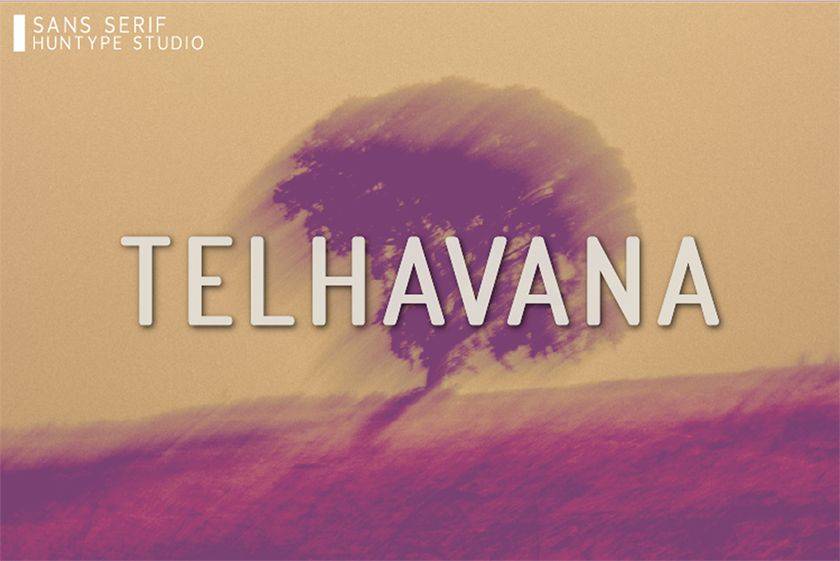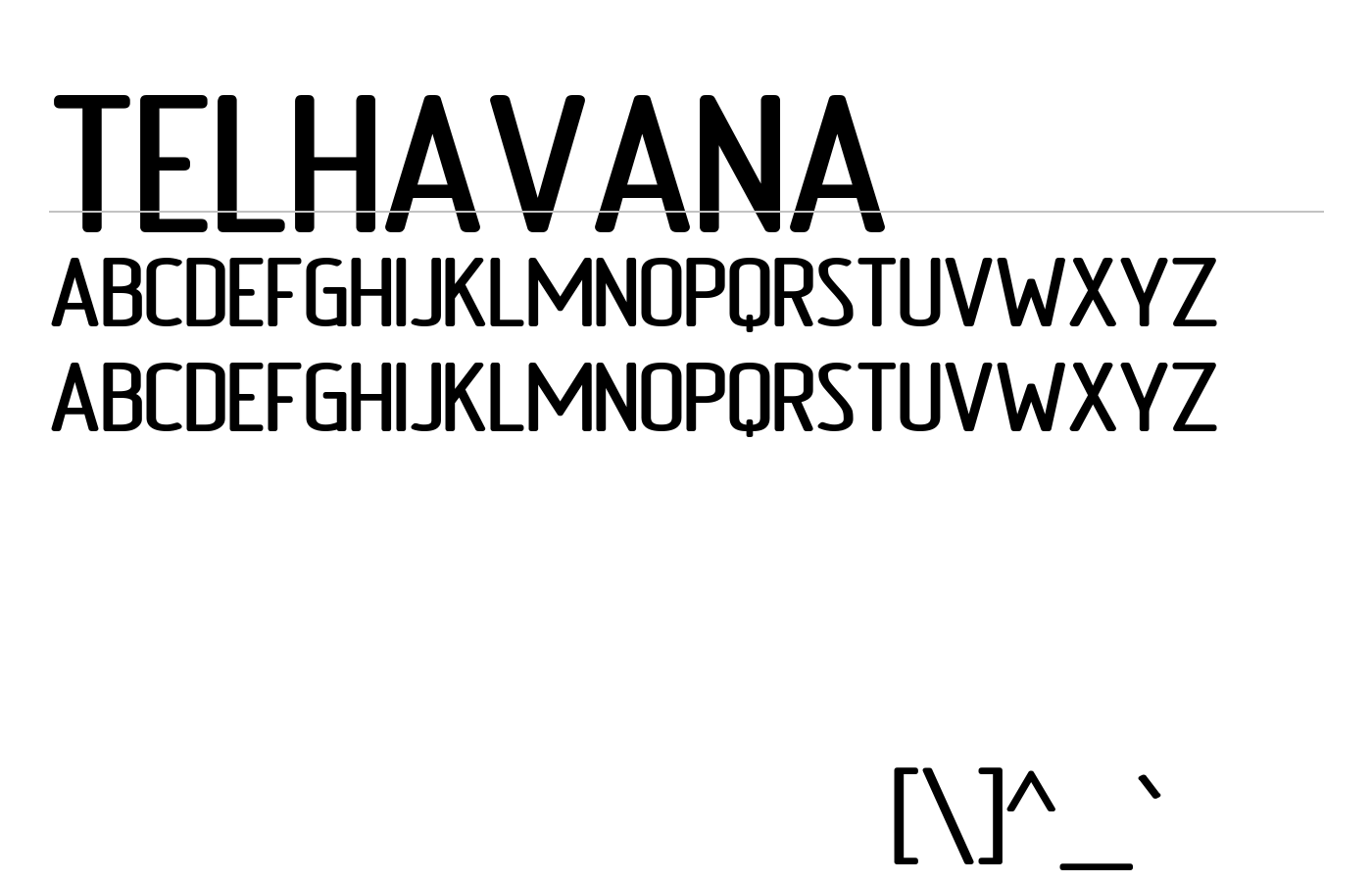
Telhavana is a clean and modern sans serif font characterized by its tall, narrow letterforms and consistent stroke weight, creating a sleek, geometric look. Its condensed width and high x-height give it strong readability in compact spaces, while its rounded terminals add a friendly, approachable feel. This font is ideal for contemporary branding, headlines, and digital interfaces where clarity and a stylish, urban vibe are desired.
Telhavana Font